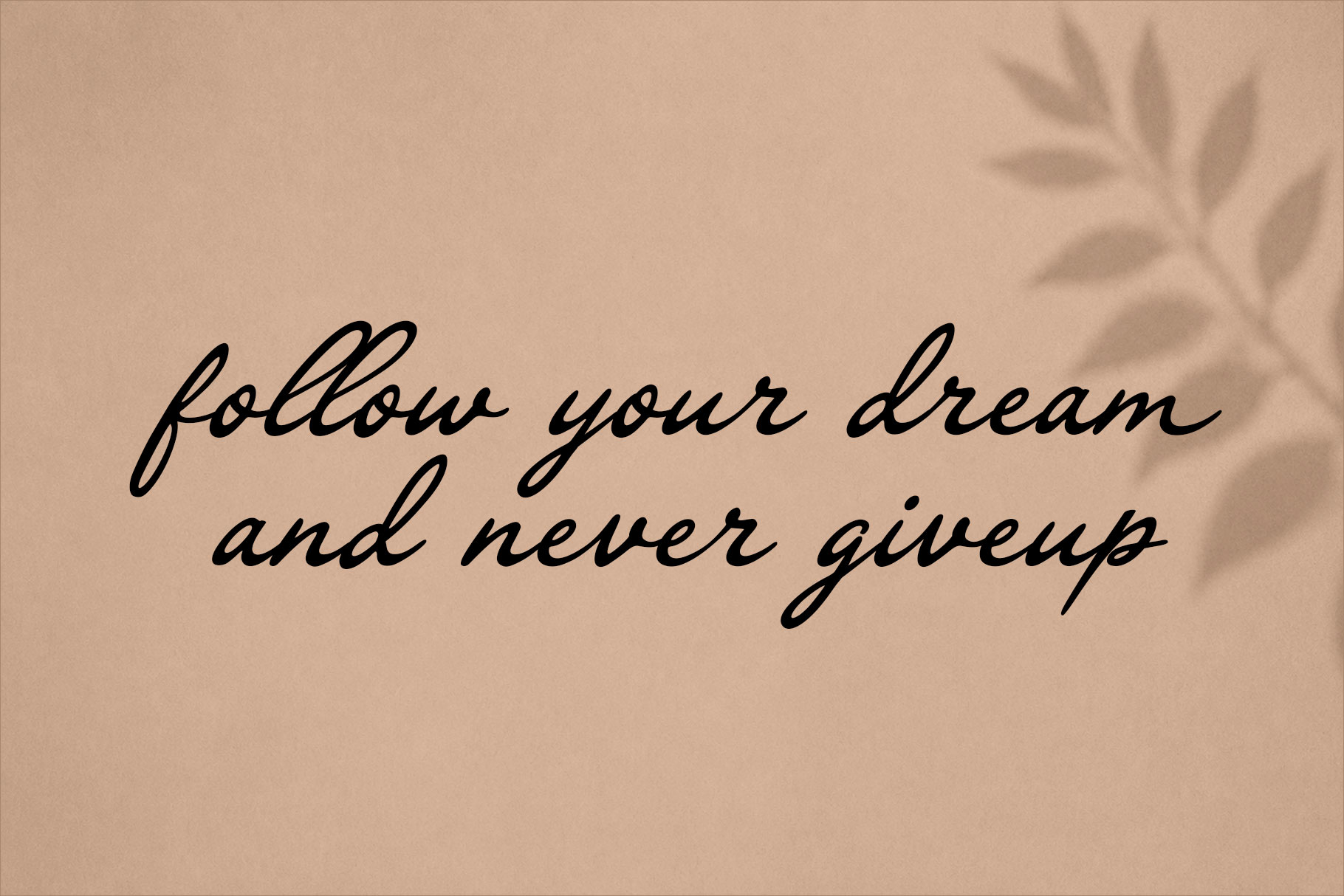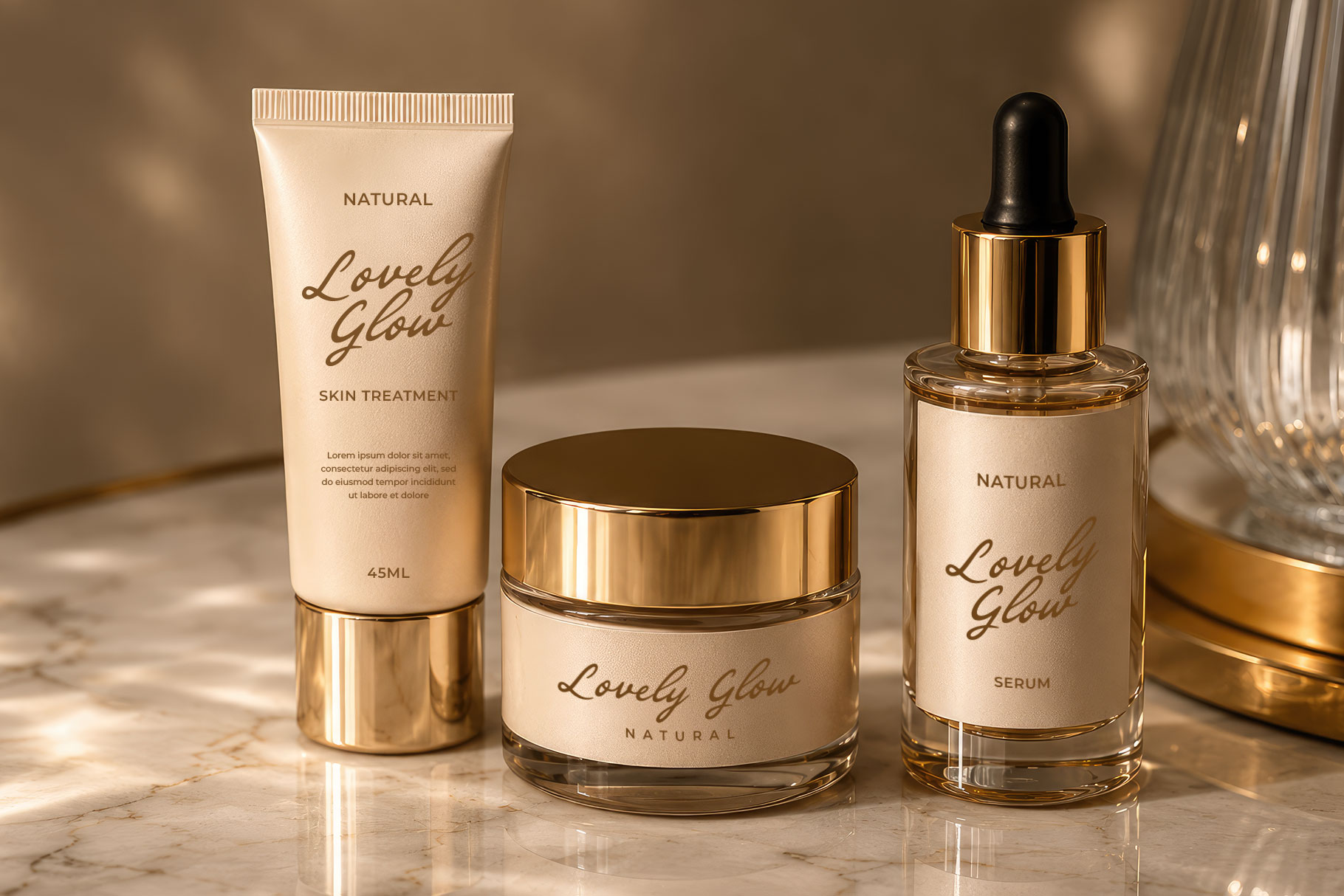
Shenira is a graceful handwritten script font that radiates elegance, warmth, and timeless sophistication. Crafted with flowing curves and smooth connections, this typeface captures the natural beauty of authentic handwriting while maintaining a polished and professional appearance. Its fluid letterforms create a sense of movement and harmony, making every word feel personal, expressive, and refined.
Shenira is a perfectly choice for any creative endeavor, creating, modern, lifestyle design such as logotype, title, cover, branding, invitations, wedding designs, display and magazine, social media posts, advertisements, printed quotes, product packaging, corporate brand, product designs, labels, photography, watermarks, special events and any other project with elegant touch.